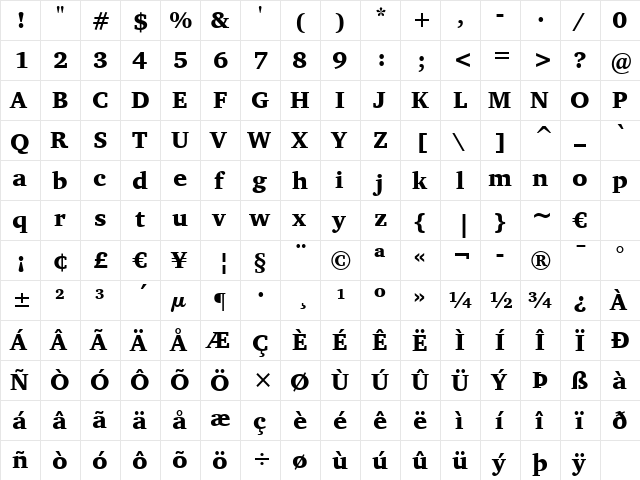
CharterITC BT Black
Design Context for CharterITC BT Typeface
CharterITC BT is a composed and adaptable typeface that performs quietly and consistently across a wide range of design contexts.